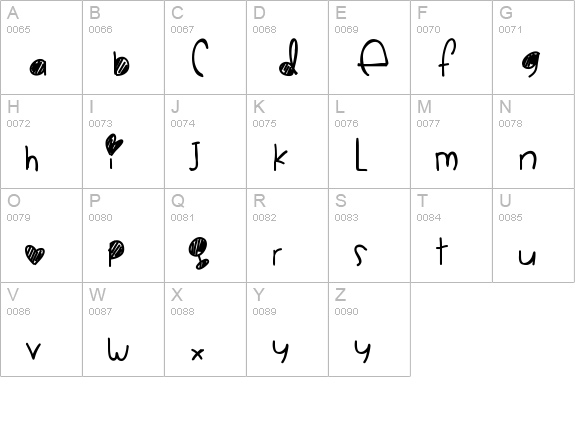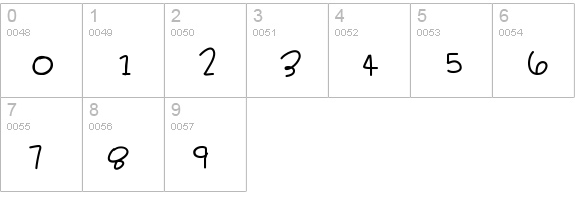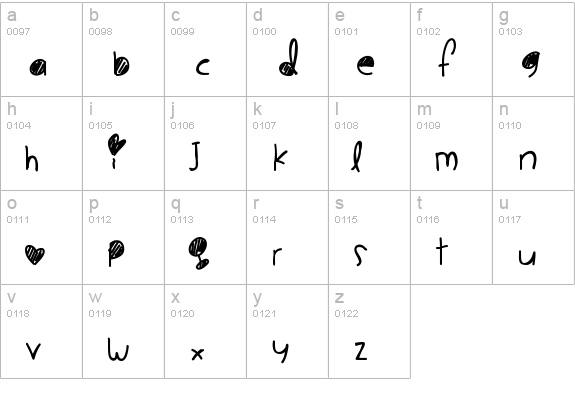
CookieMonster Font Details
CookieMonster is a delightful and playful font that will satisfy your sweet tooth for typography. This whimsical typeface is inspired by the beloved Sesame Street character, Cookie Monster, and exudes a sense of fun and nostalgia. With its charmingly uneven letterforms and handwritten style, CookieMonster font is perfect for adding a touch of whimsy to your designs. What makes CookieMonster font even sweeter is that it is absolutely free! Yes, you heard it right - this delightful font is freely available to download at FontsMarket.com. Now you can bring a taste of childhood nostalgia to your projects without breaking the bank. Whether you're designing a logo, creating invitations, or crafting a poster, CookieMonster font will add a playful and eye-catching element to your work. The versatility of CookieMonster font knows no bounds. It works well for both headlines and body text, and its legibility remains intact even at smaller sizes. The irregular letterforms and the uneven strokes give the font a hand-drawn quality, adding a touch of authenticity and character to your designs. With CookieMonster font, you can unleash your creativity and bring a sense of fun and whimsy to your projects. Whether you're a designer, a marketer, or simply a fan of the lovable Cookie Monster, this font is a must-have in your typographic arsenal. So what are you waiting for? Head over to FontsMarket.com and download CookieMonster font for free today!